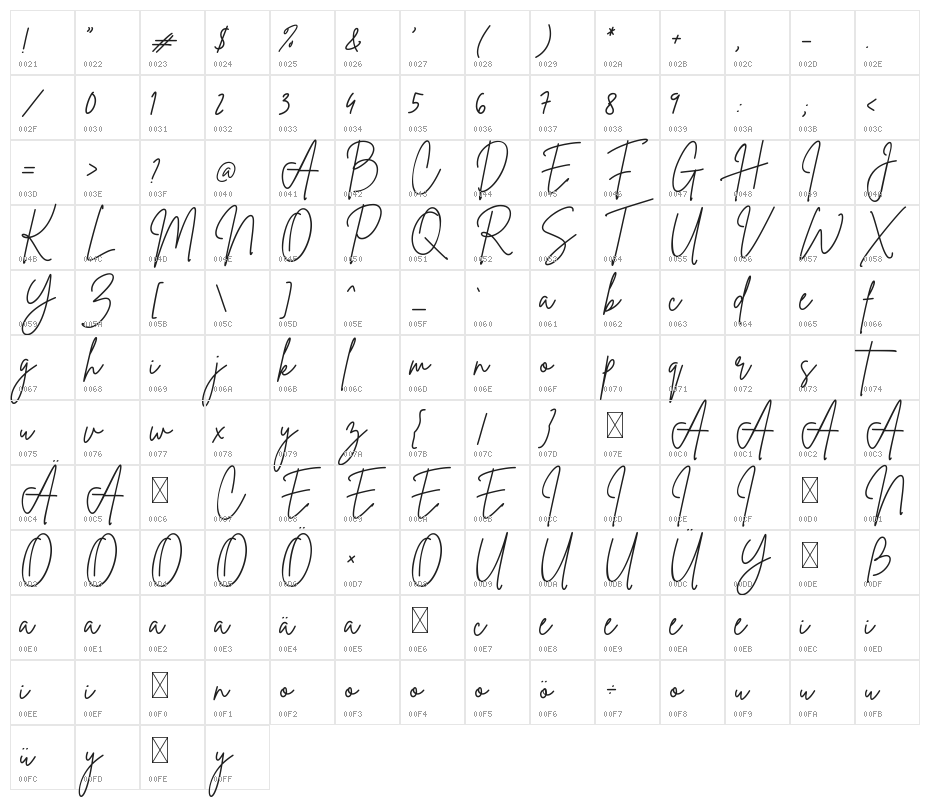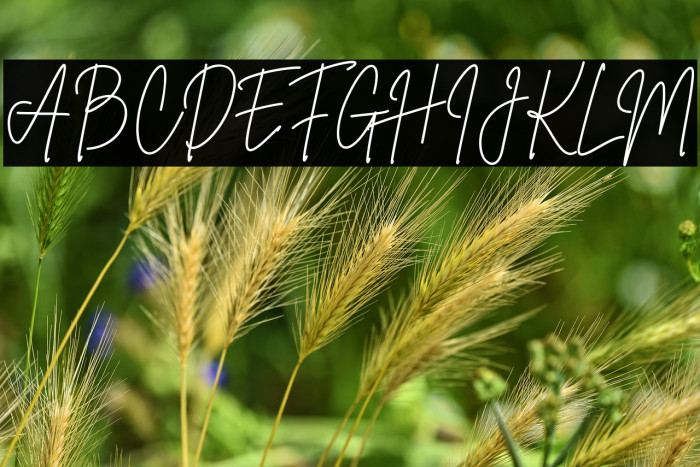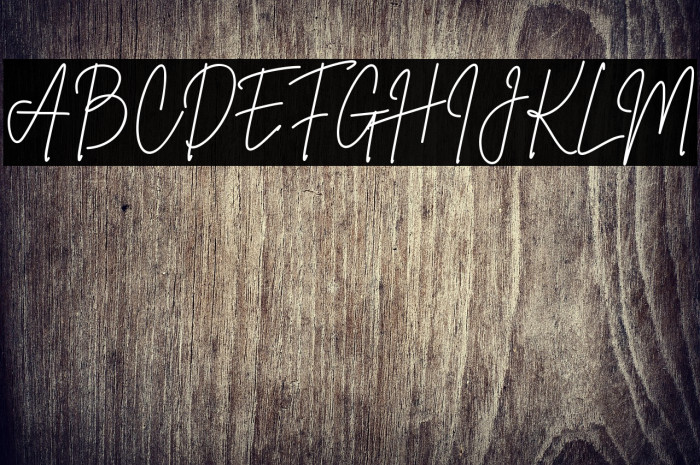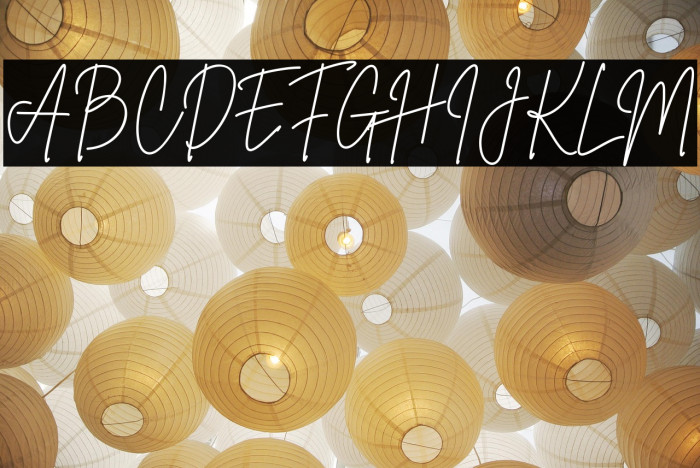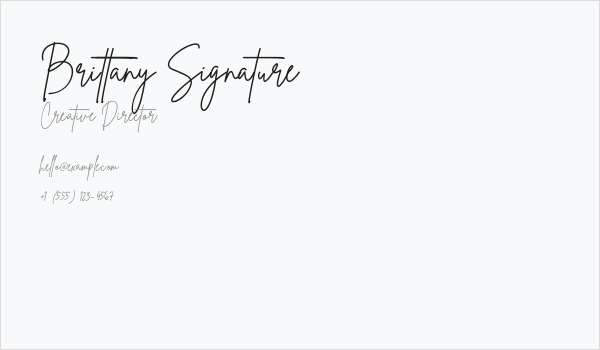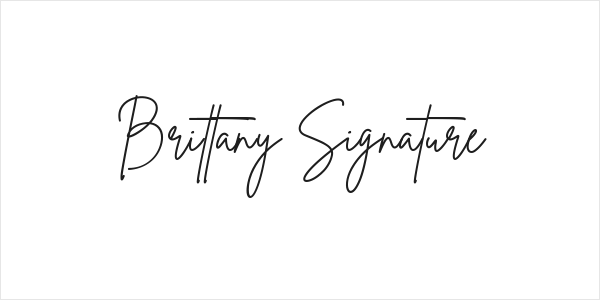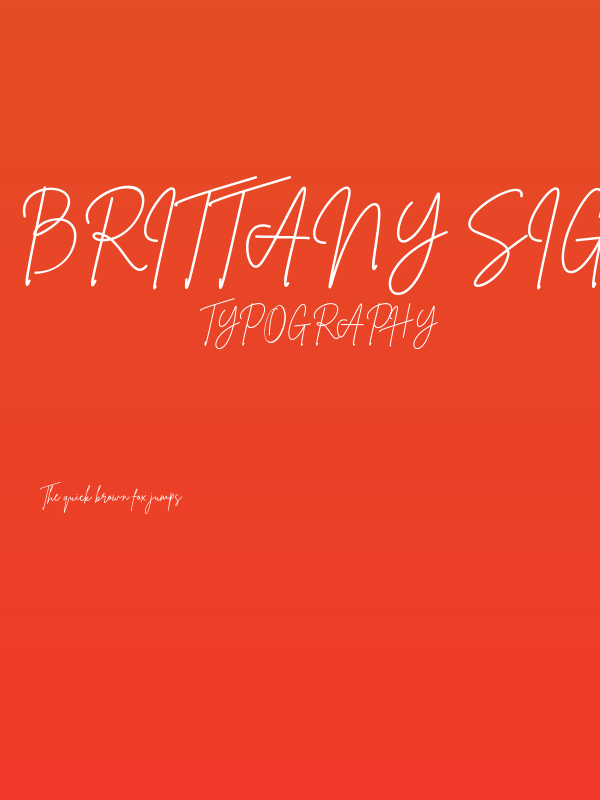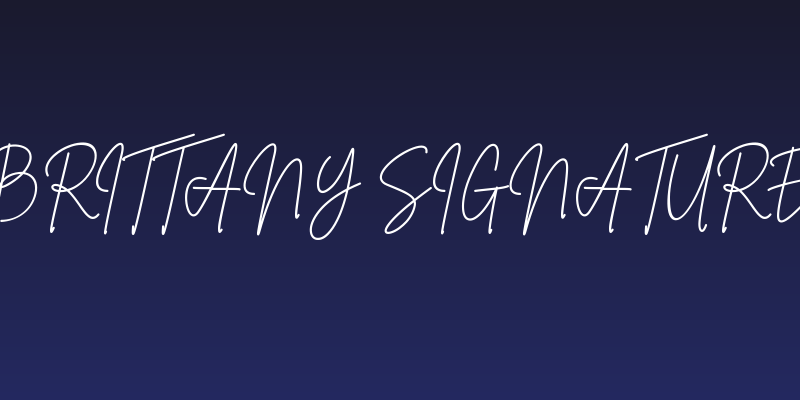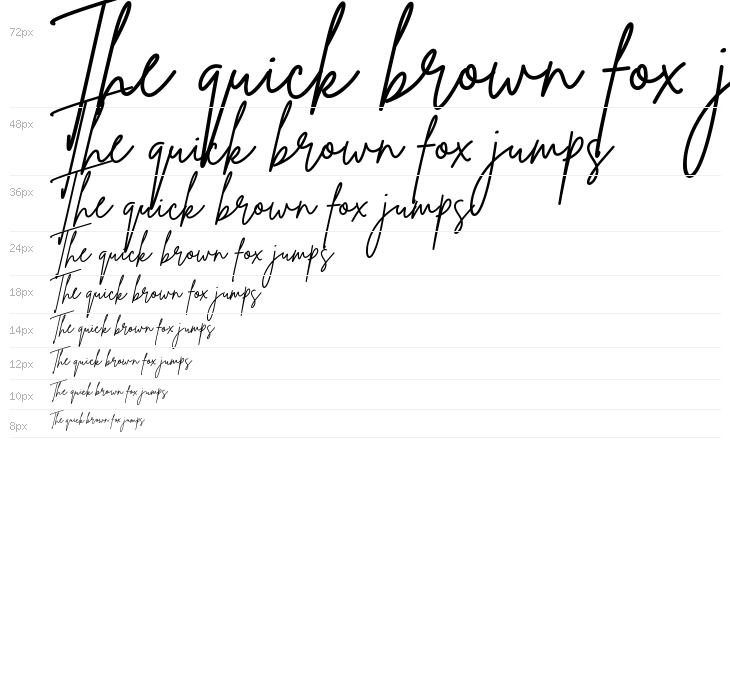
Brittany Signature Font
Brittany Signature Description
This font exudes a casual yet elegant handwritten style, characterized by its fluid and connected strokes. The uppercase letters are tall and slender, with a slight slant that adds a dynamic feel. The lowercase letters maintain a consistent flow, enhancing the script's natural appearance. Numbers and special characters are designed to complement the overall aesthetic, ensuring versatility across various applications. The font's organic curves and smooth lines make it ideal for projects that require a personal touch, such as invitations, greeting cards, and branding materials. Its legibility and stylish flair make it suitable for both digital and print media.
| Overall Style | Elegant, Casual |
| Proposed Projects | Ideal for wedding invitations, personal branding, greeting cards, and elegant packaging. |